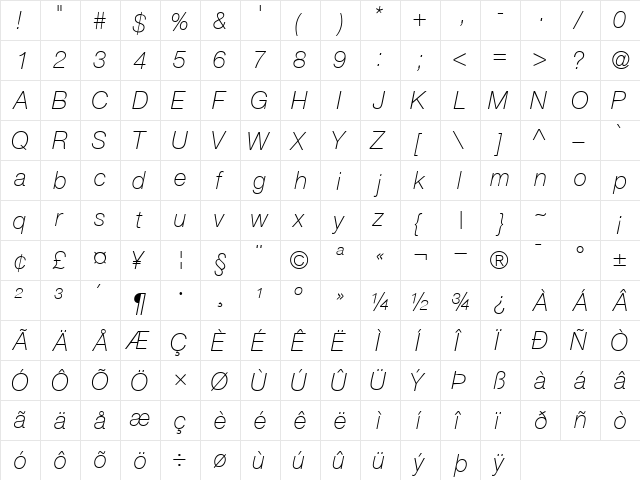
ContextRepriseThinSSK Italic
Design Context for ContextRepriseThinSSK Typeface
ContextRepriseThinSSK is a composed and adaptable typeface that performs quietly and consistently across a wide range of design contexts. The dynamic lean of this cut emphasises speed and emphasis in any layout. Its slender proportions lend an understated elegance to any composition.
Pro Tip: Use ContextRepriseThinSSK for emphasis, pull quotes, and subheadings where its slanted energy can add rhythm to the layout.